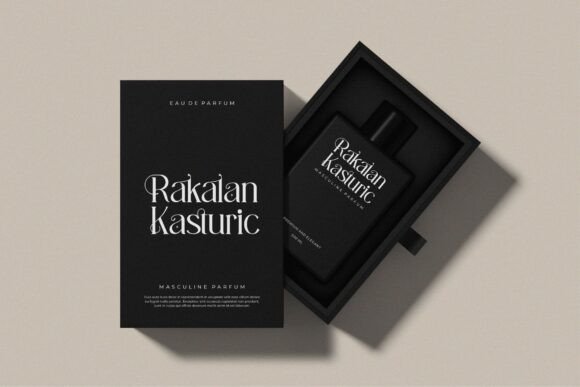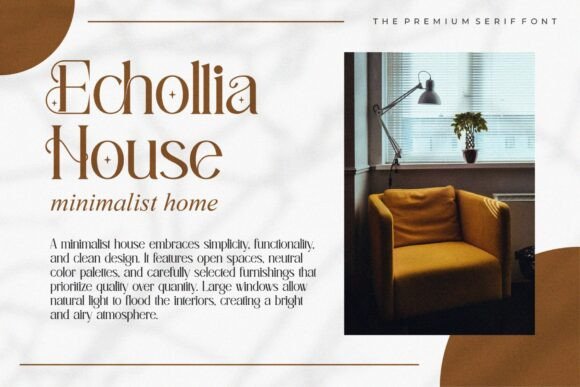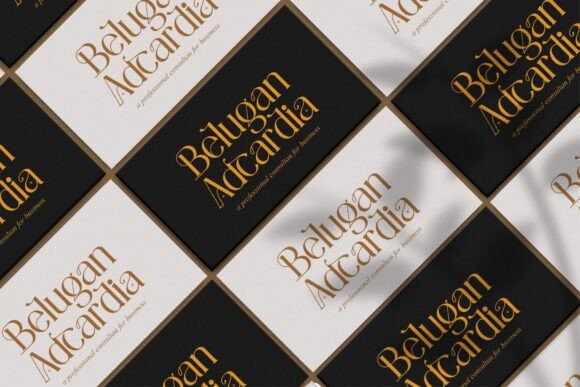
Introduction to Rastablo Font
Rastablo is a modern, trendy, bouncy and cute serif font.
It has a unique character with wood theme It is perfect to be combined with invitation card designs, company logos, movie titles, movie names, business cards, book titles, brand names and various other designs.